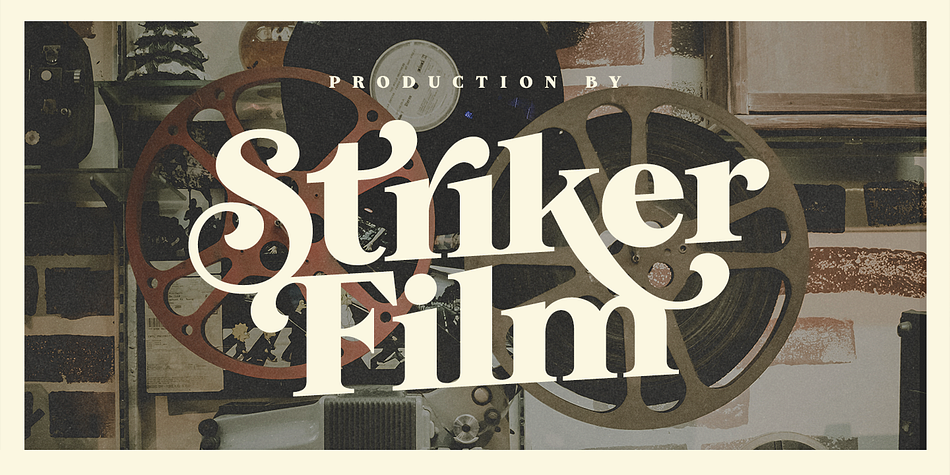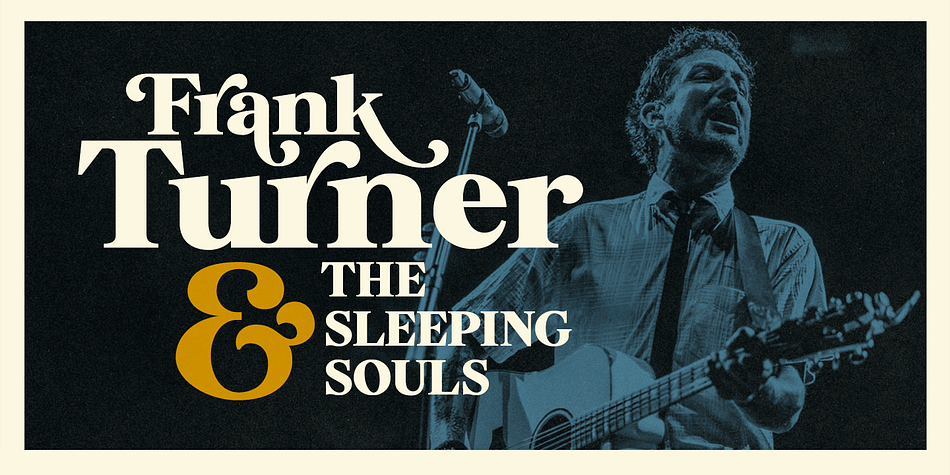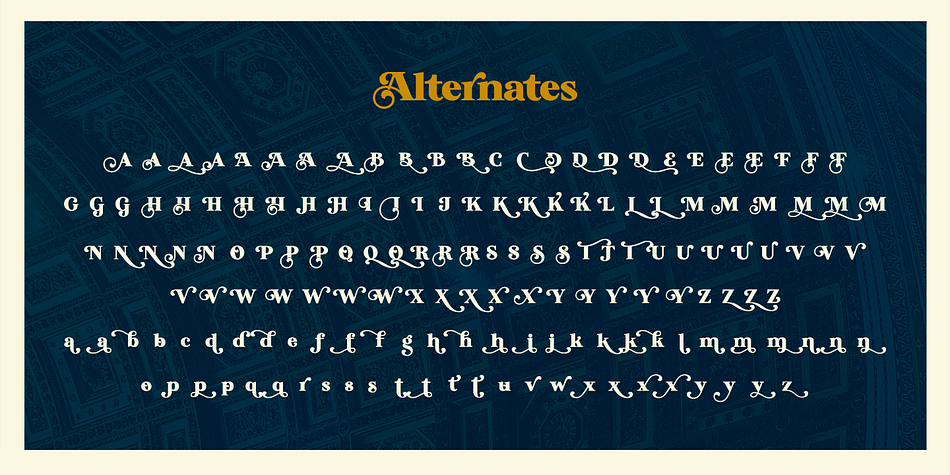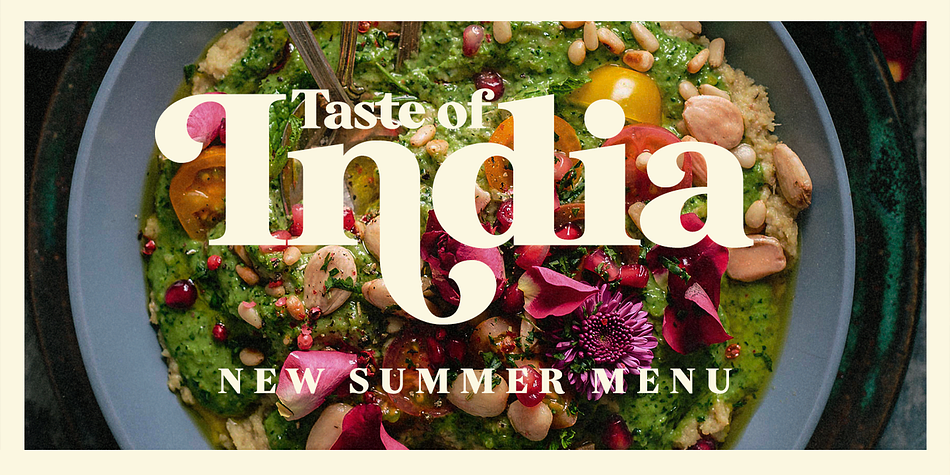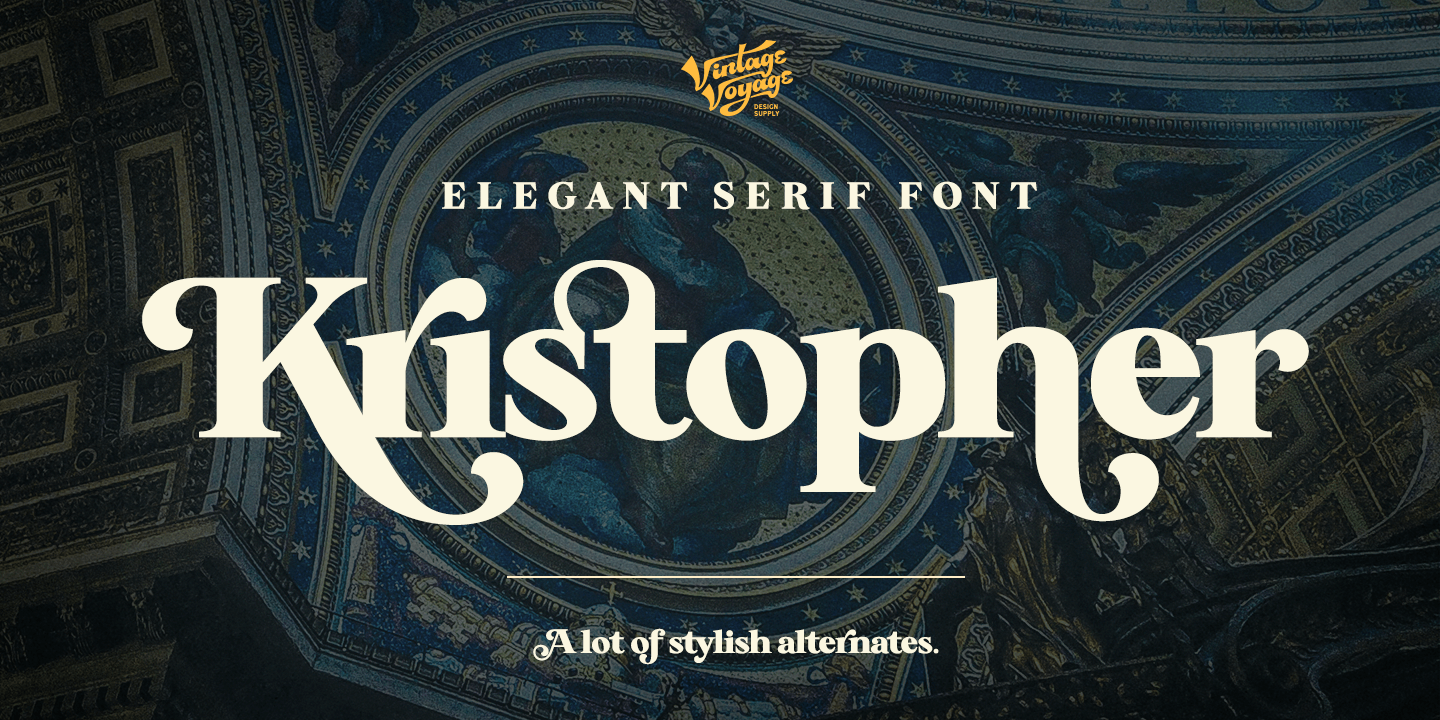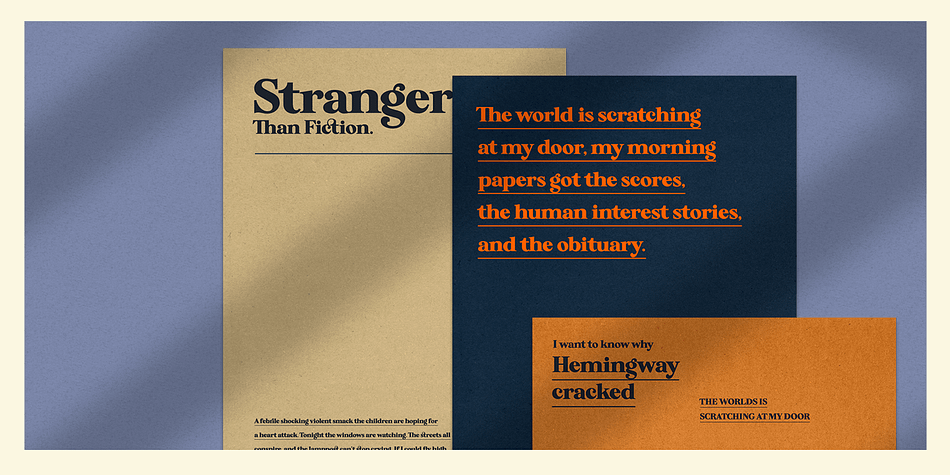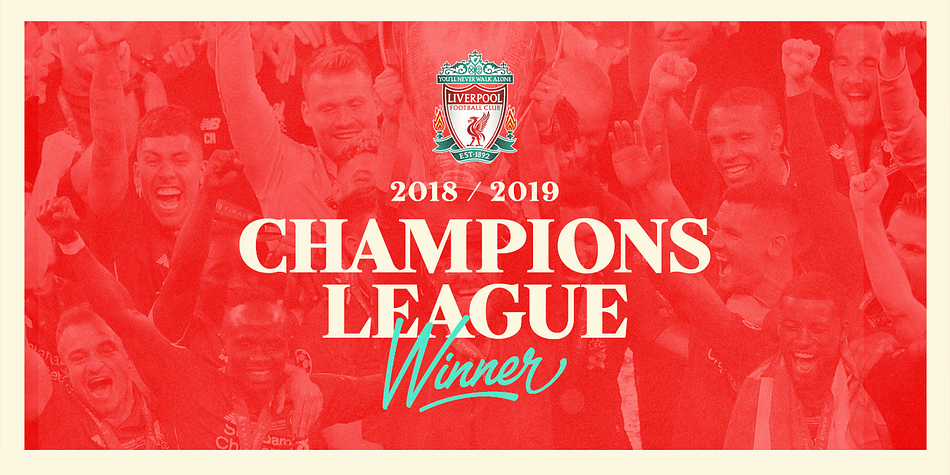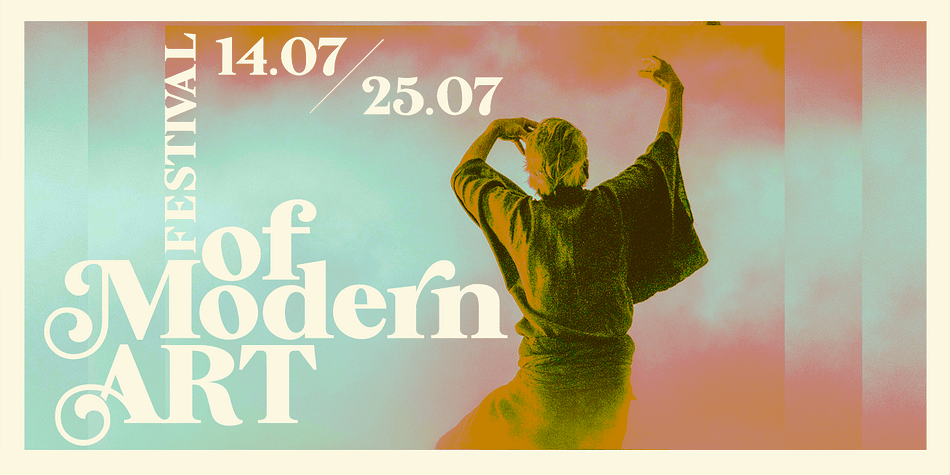
Designed by Pavel Korzhenko, Kristopher is a display serif font published by Vintage Voyage Design.
Elegant serif with contrast lines and balanced curves. A lot of stylish alternates will give you many useful variations for use. Try to play with compositions of curves / alternates letters w/ basic. This font may be conservative and classic, and also may be more playful and modern. It will good for Theatre or Art posters and the same good for Modern music web-pictures or vinyl covers. Of course it also will be well for coffee shops, cafe’s, restaurants, magazine’s headers, signs or gift/post cards and weddings. Try to use it in your beauty or travel blogs, you will see how many options you will have with stylish Kristopher.
| Foundry | Vintage Voyage Design |
| Style | Display Serif |
| Designer | Pavel Korzhenko |